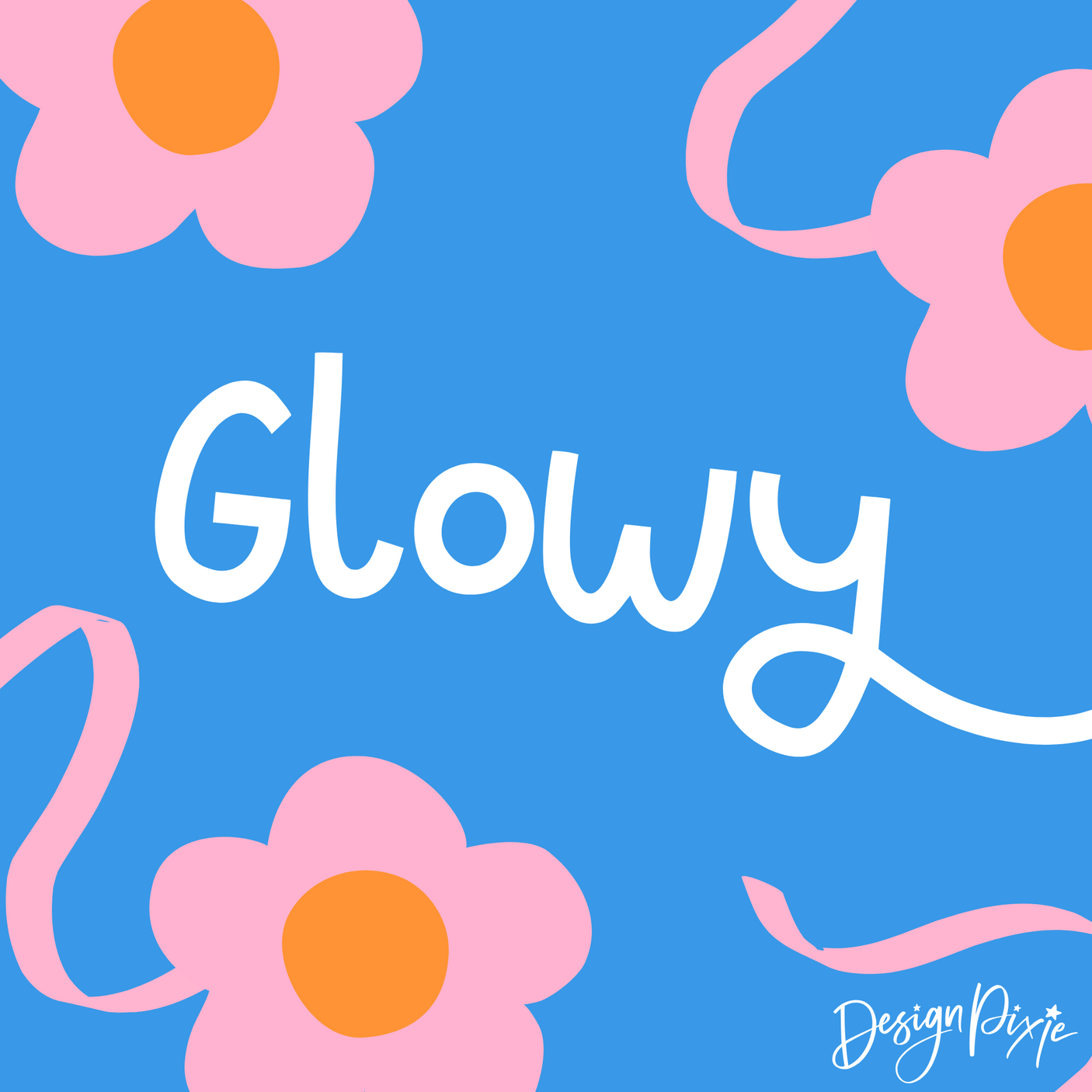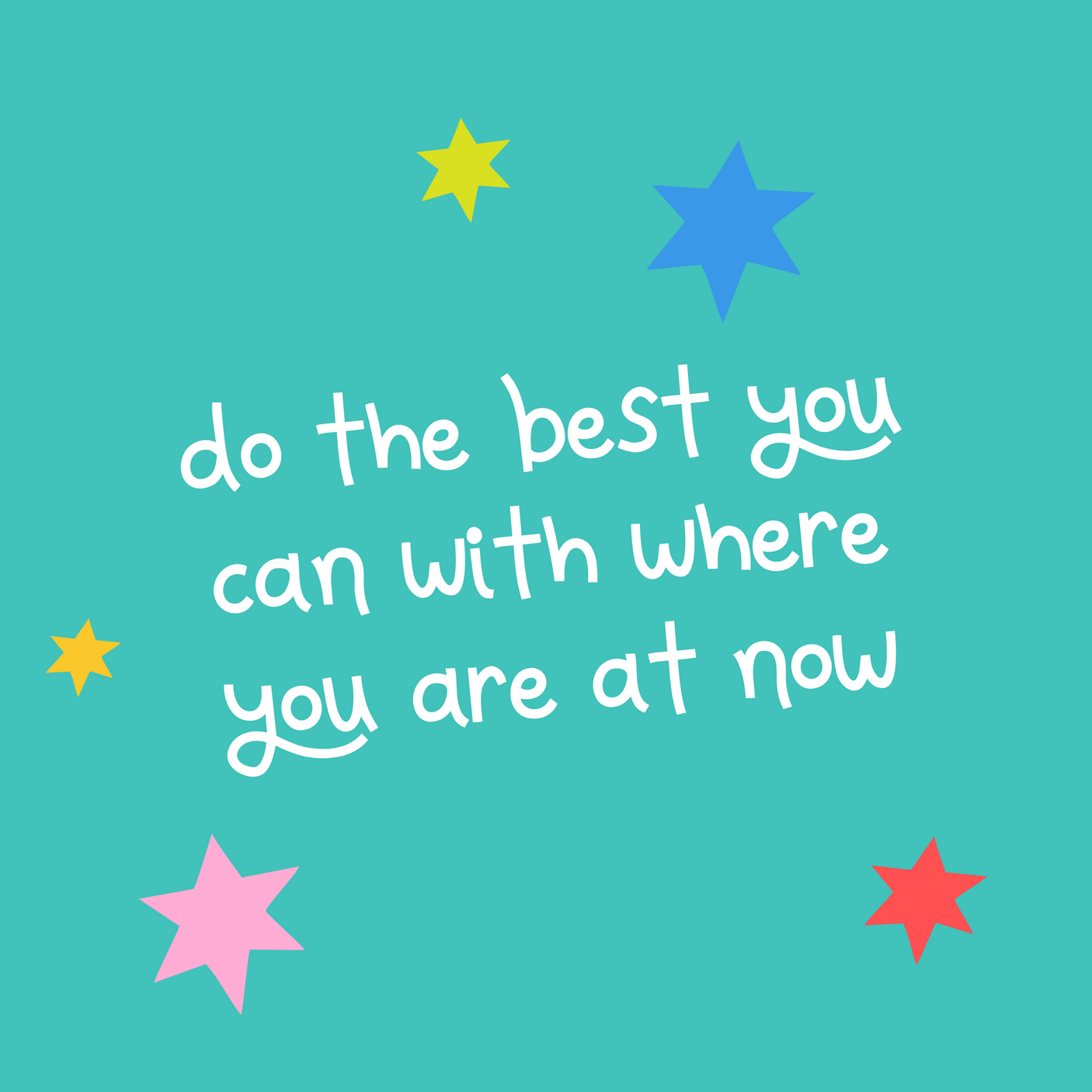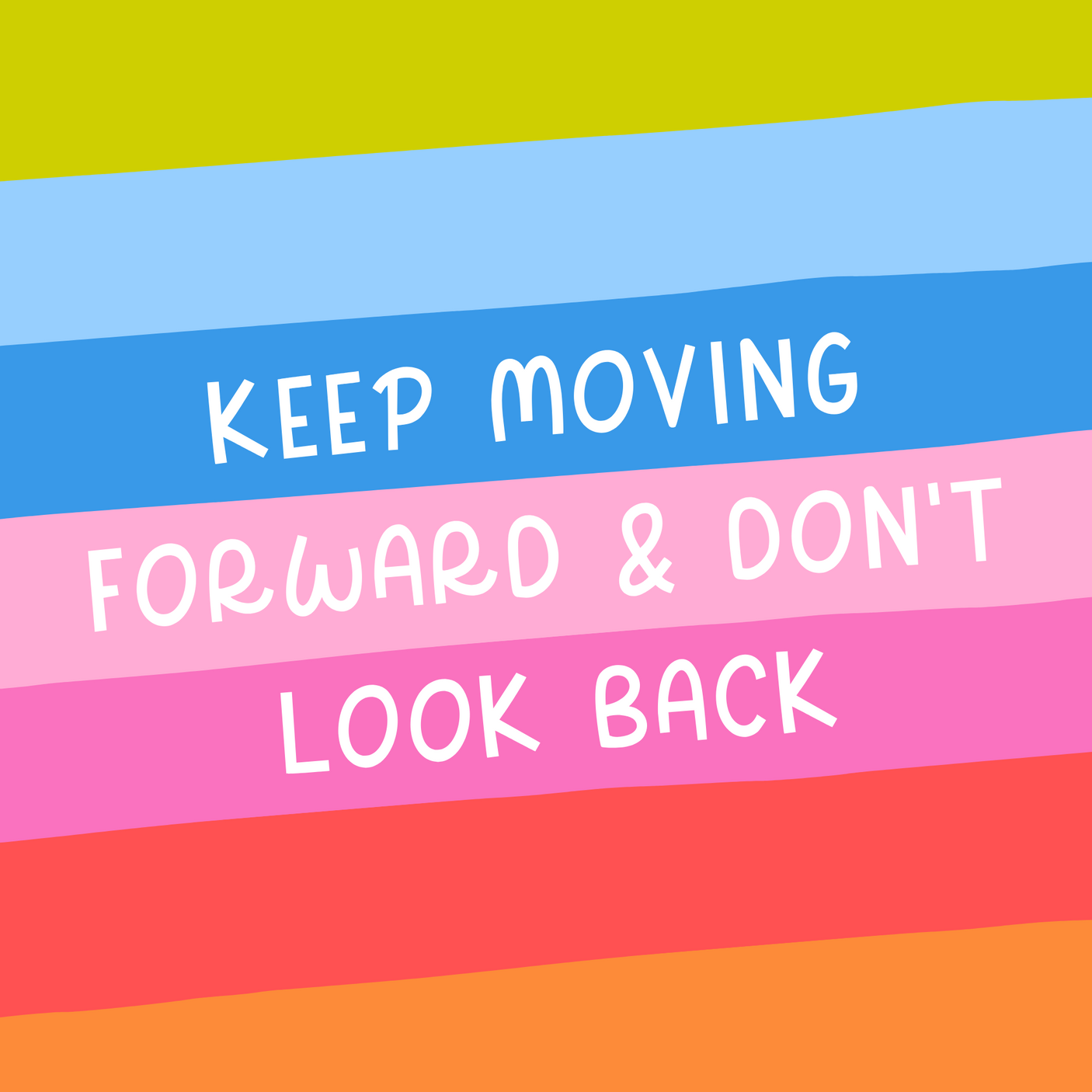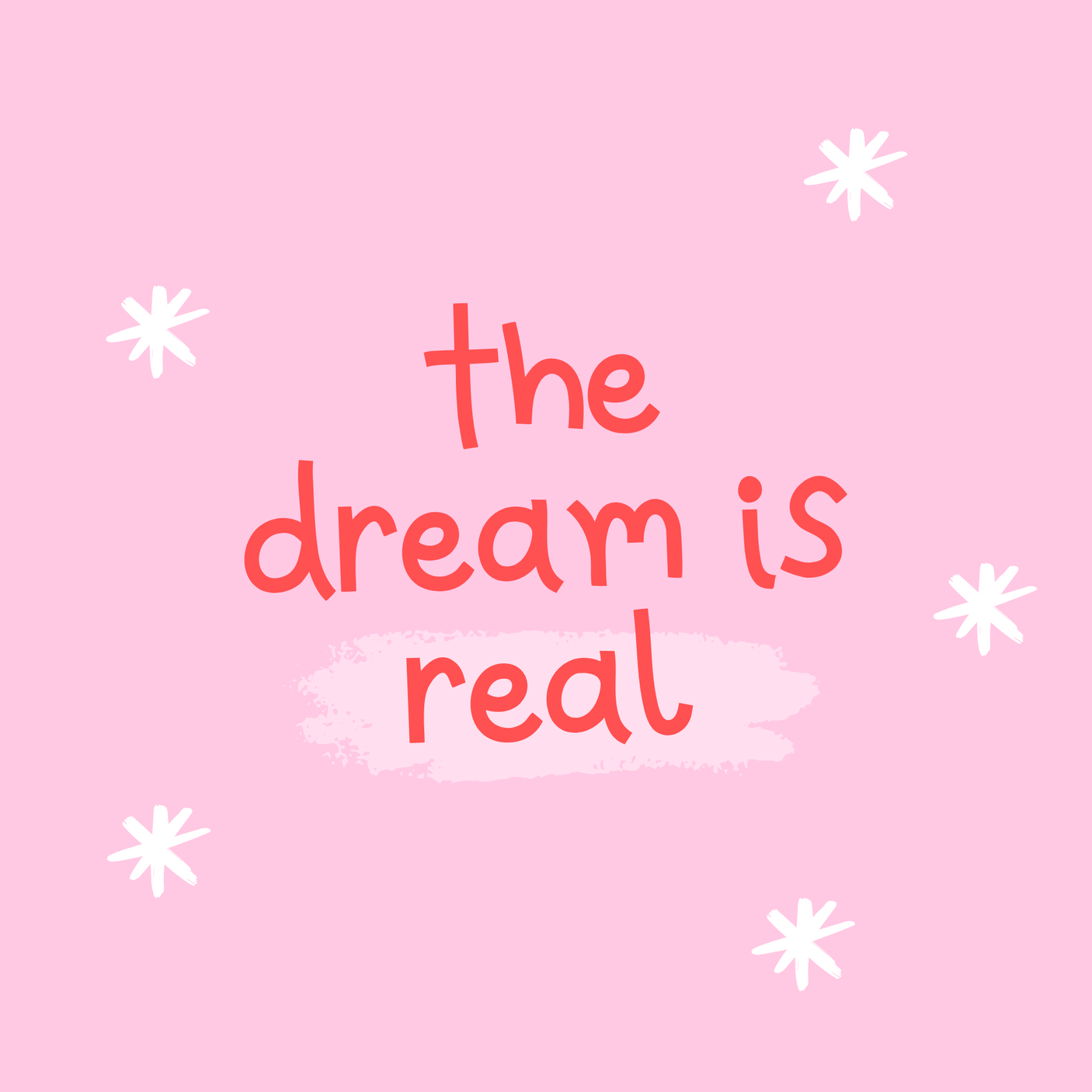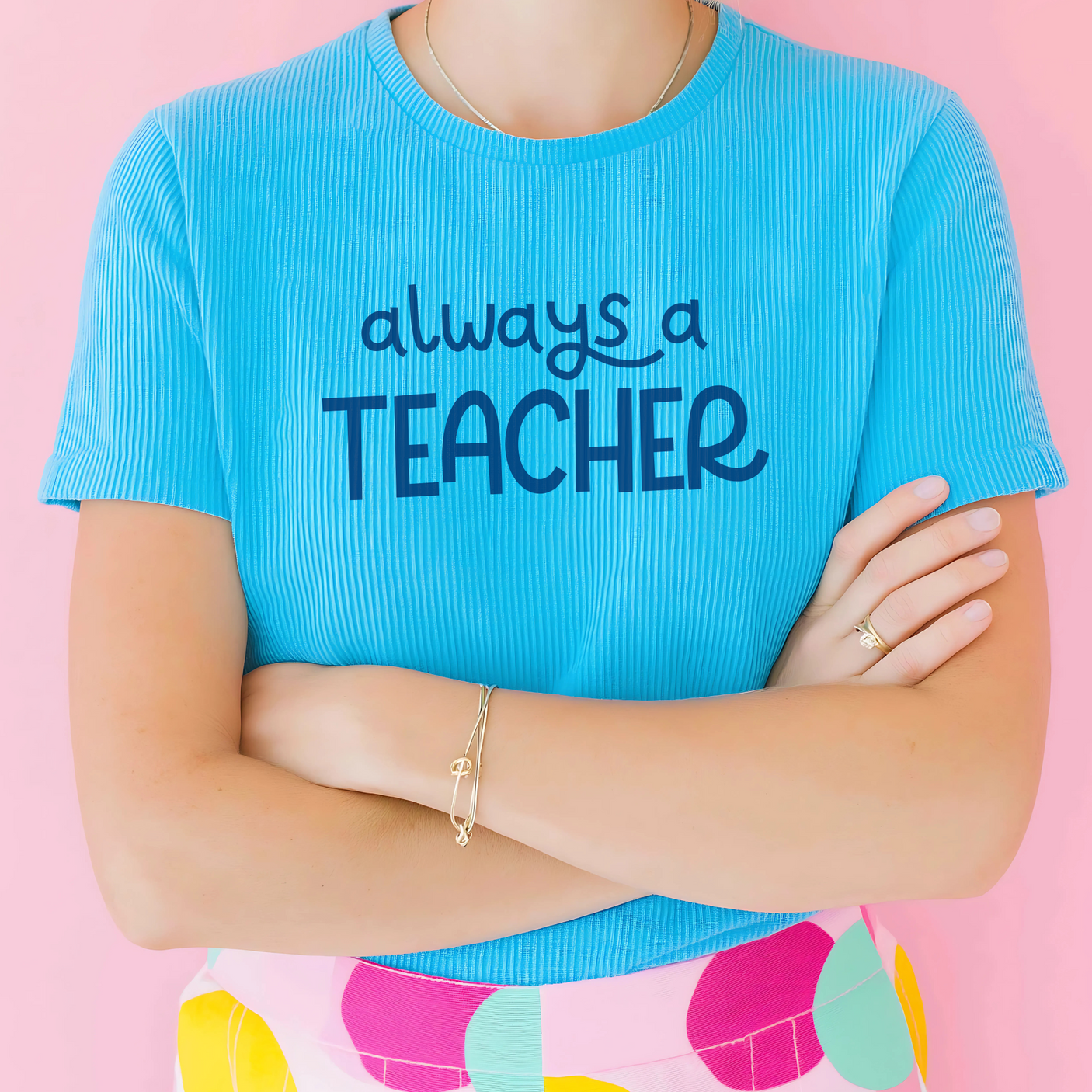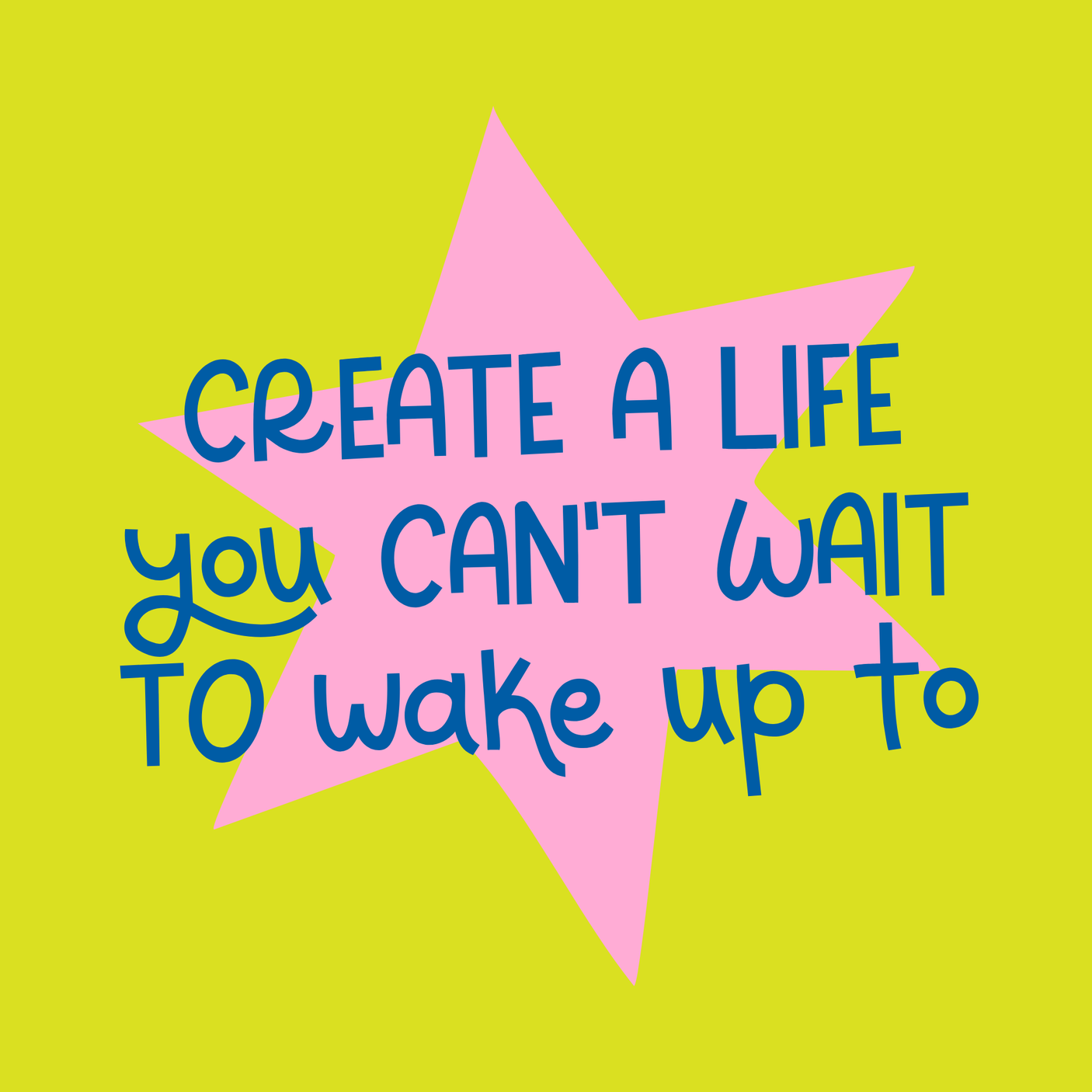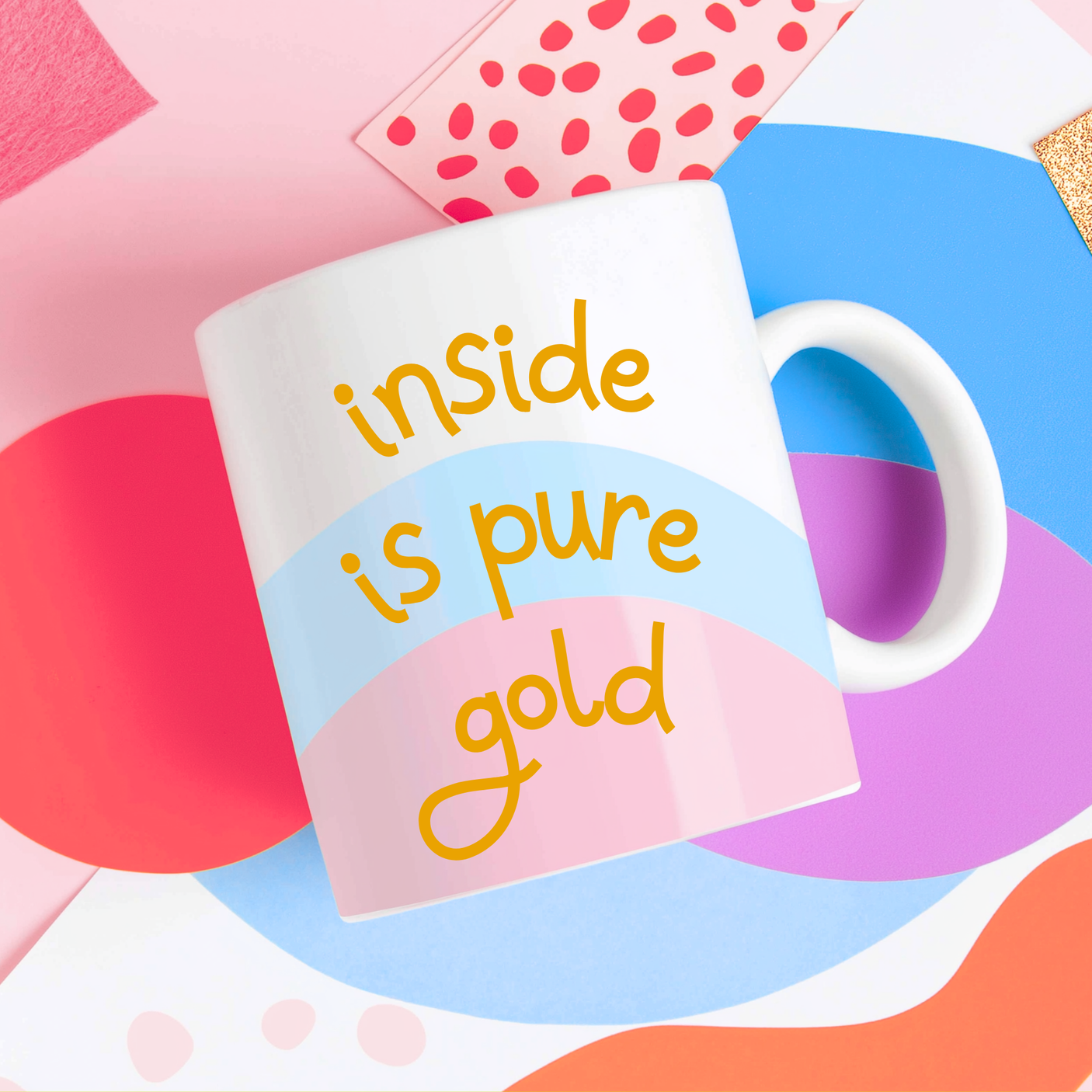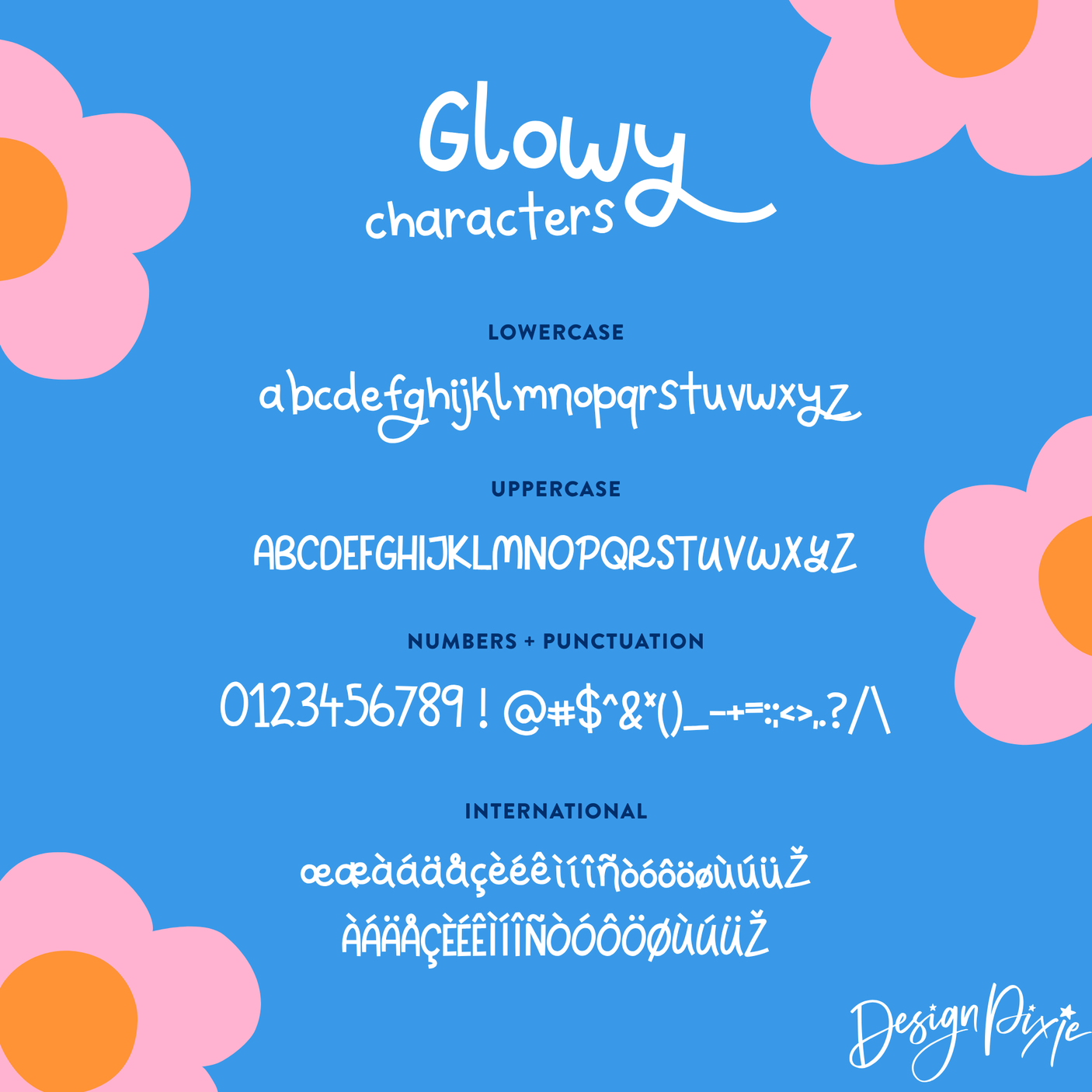
Glowy Font
Meet Glowy font - a bold, monoline display font with a groovy twist! With smooth curves, retro flair, and a playful bounce, Glowy brings serious personality to any design. It's the perfect blend of bold and bubbly, making your text pop with style and confidence.
Whether you're creating statement quotes, fun packaging, funky branding, or vibrant social media graphics, Glowy delivers a standout look that feels both nostalgic and fresh.
Why you’ll love Glowy:
- Groovy retro vibes with a modern twist
- Bold monoline strokes that stand out
- Perfect for funky branding, quotes, and headings
- Fun, playful, and full of personality
Add instant glow-up energy to your designs with Glowy - your new favorite bold font!